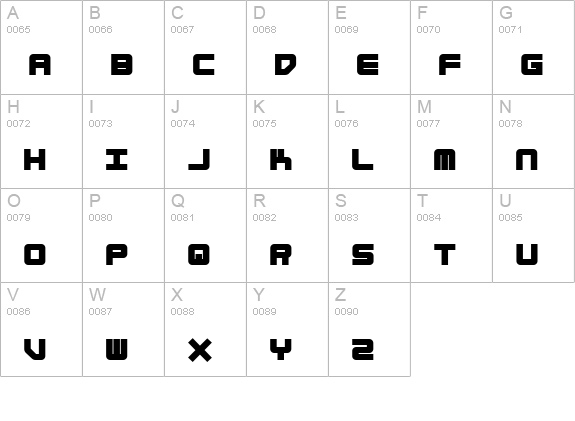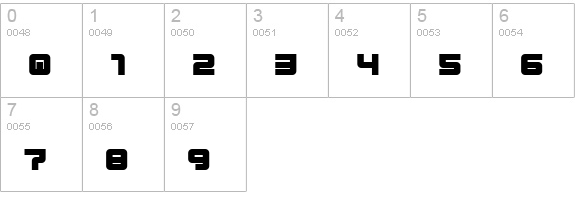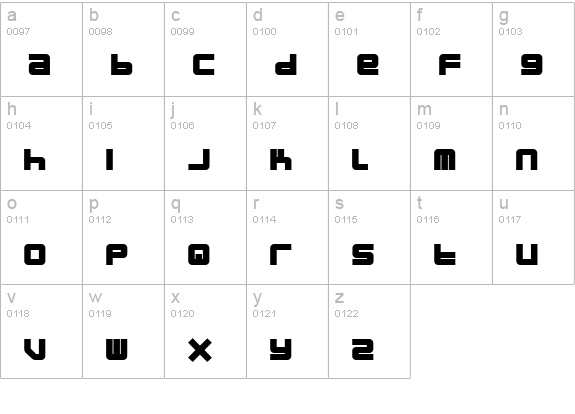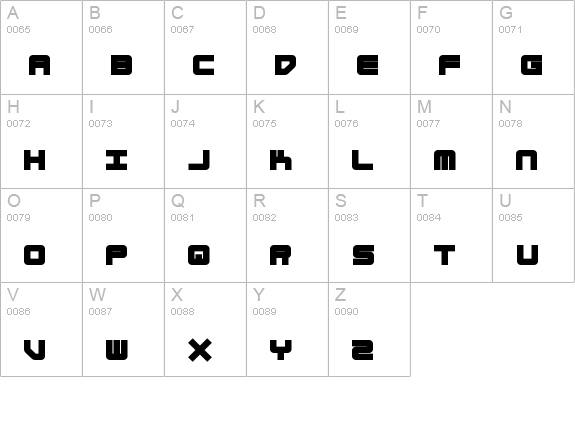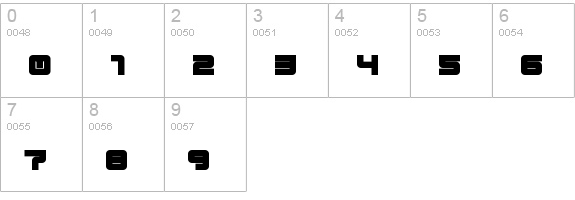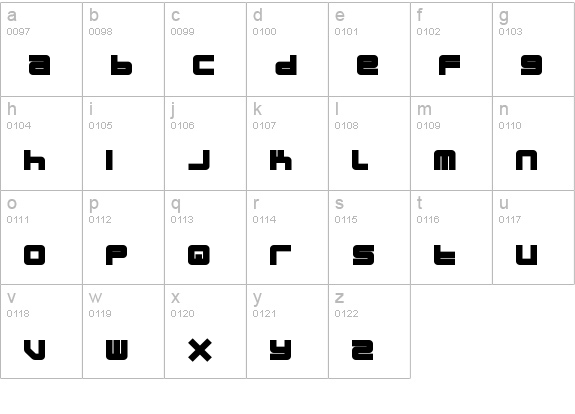
blockit Bold Font Details
blockit Bold is a strong, high-contrast variant in the blockit typeface family \xE2\x80\x94 well suited to headlines, attention-grabbing titles, and strong calls-to-action.
Introducing Blockit Bold font, a bold and striking typeface that commands attention with its strong and powerful presence. This versatile font is perfect for creating eye-catching headlines, titles, and design projects that require a touch of boldness. With its clean lines and modern aesthetic, Blockit Bold font exudes confidence and style. And the best part? Blockit Bold font is available for free download at FontsMarket.com. So whether you're working on a creative project, designing promotional materials, or simply looking to add a bold statement to your work, Blockit Bold font has got you covered. Download this impressive font today and elevate your designs with its impactful and bold style.